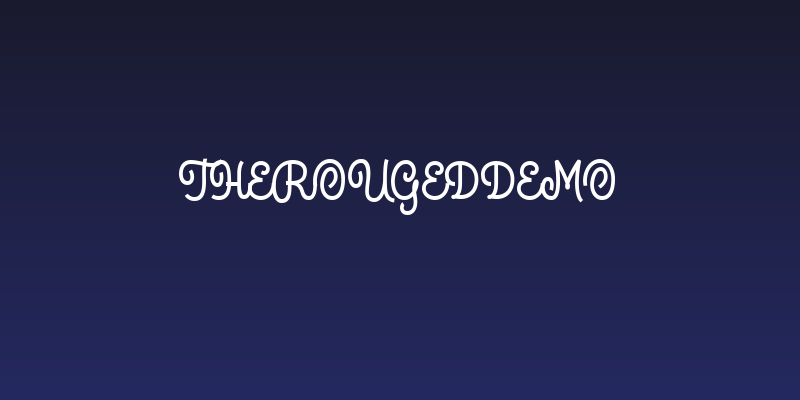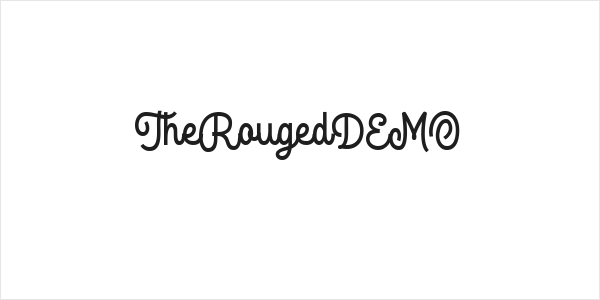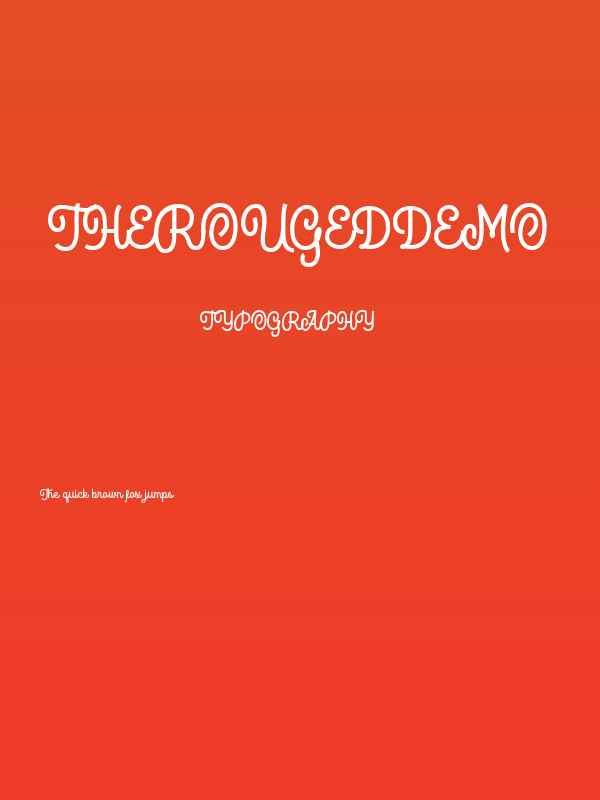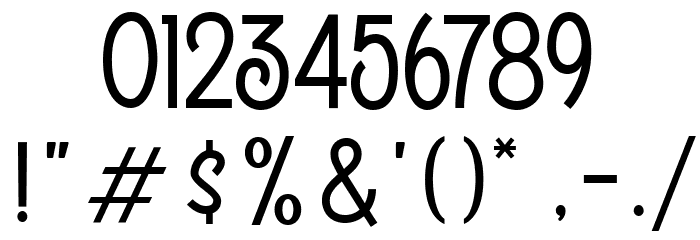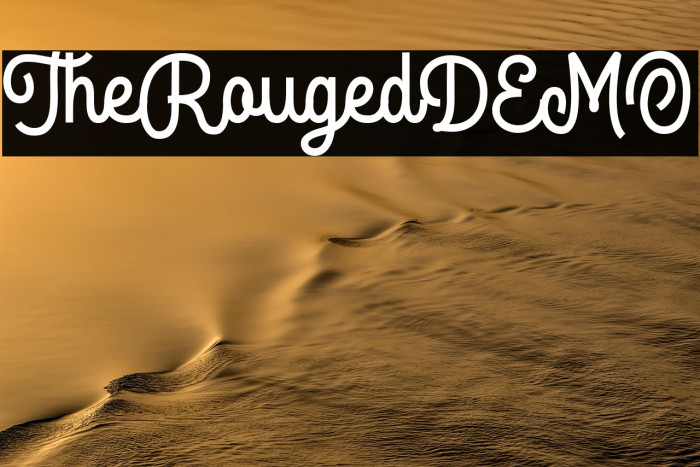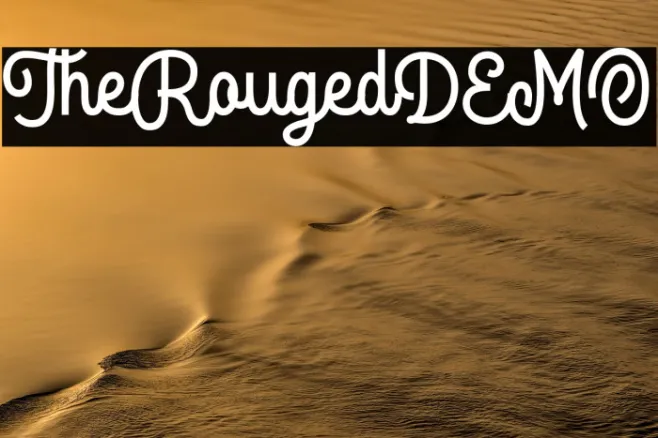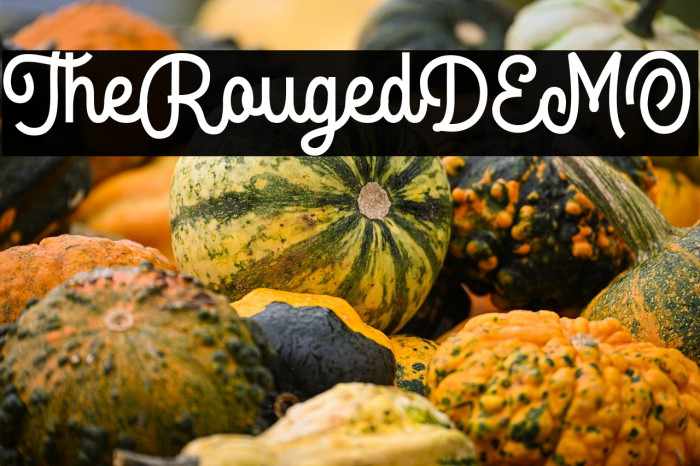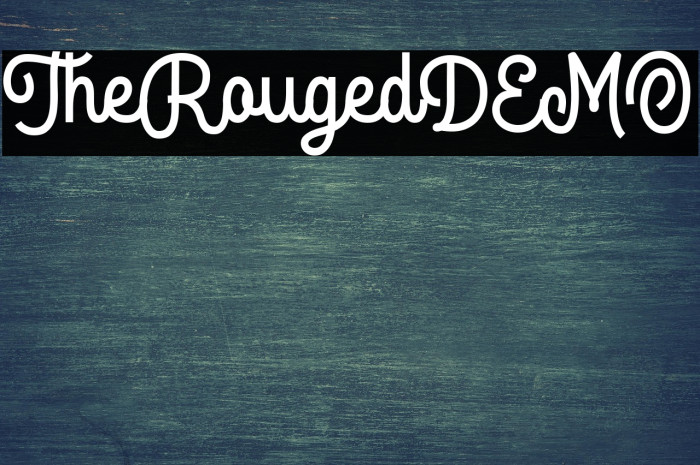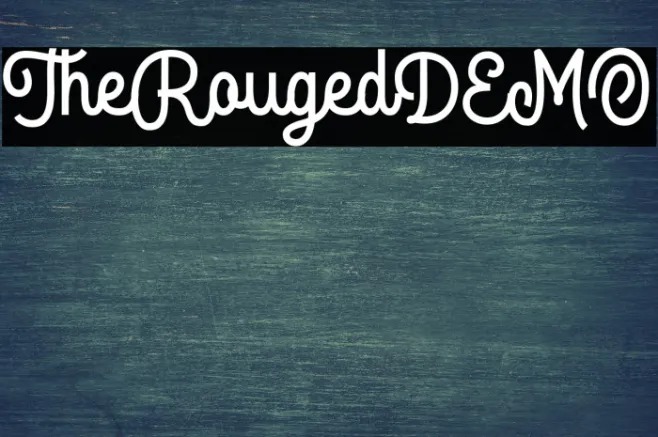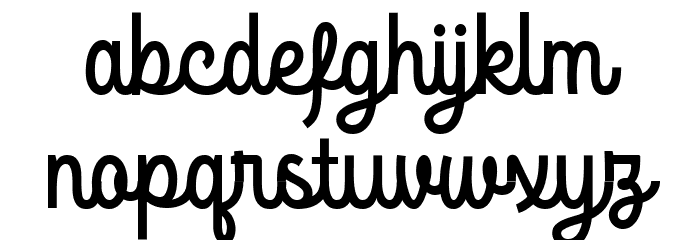
TheRougedDEMO Font
TheRougedDEMO Description
This font features a playful and whimsical style with a handwritten appearance. The uppercase letters are characterized by their flowing, cursive-like strokes, while the lowercase letters maintain a consistent, rounded form. The numbers are bold and clear, ensuring readability. Special characters are integrated seamlessly, maintaining the font's overall aesthetic. The font's design is both approachable and stylish, making it suitable for a variety of creative projects. Its unique charm is enhanced by the smooth curves and loops, which add a touch of elegance and personality.
| Proposed Projects | Ideal for greeting cards, invitations, playful branding, children's books, and creative social media graphics. |